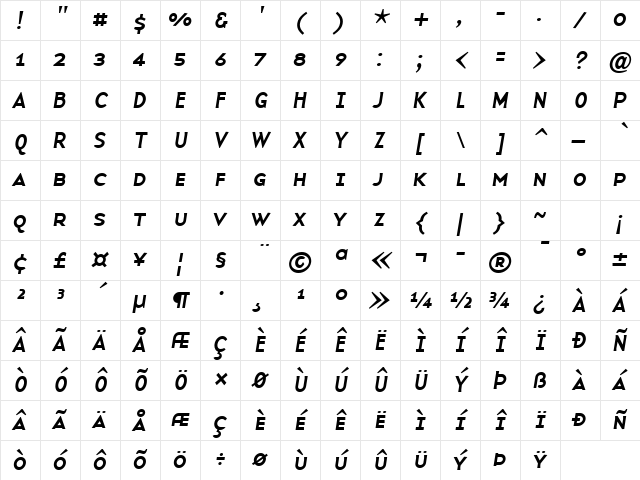
BaseNineSmallCaps Italic Free Font
BaseNineSmallCaps Italic
Design Context for BaseNineSmallCaps
BaseNineSmallCaps is a composed and adaptable typeface that performs quietly and consistently across a wide range of design contexts. The slanted form adds forward momentum and visual energy.
Pro Tip: Use BaseNineSmallCaps for emphasis, pull quotes, and subheadings where its slanted energy can add rhythm to the layout.